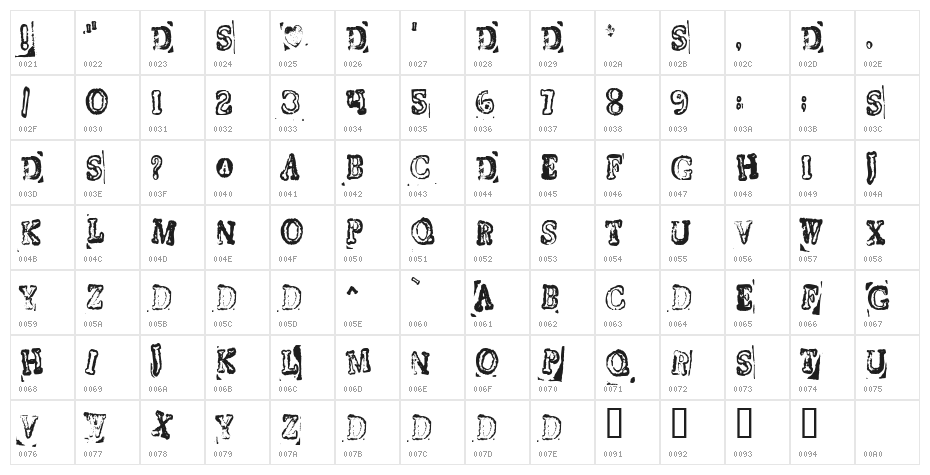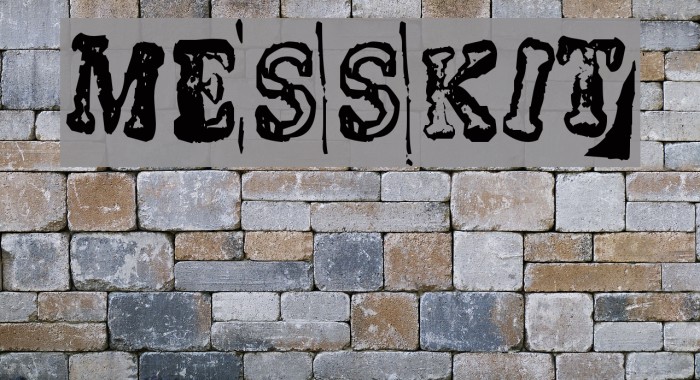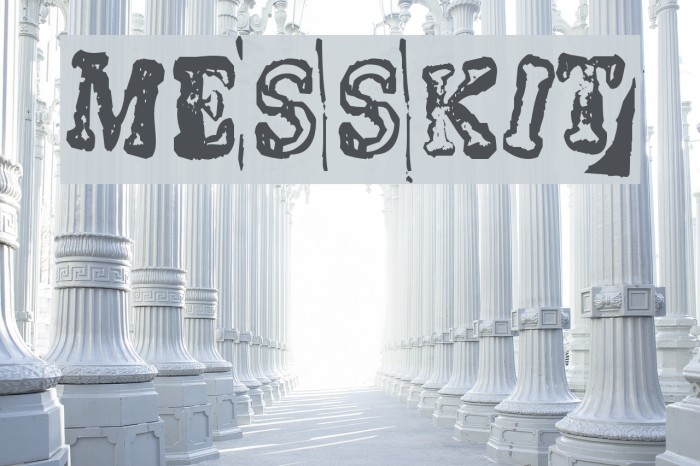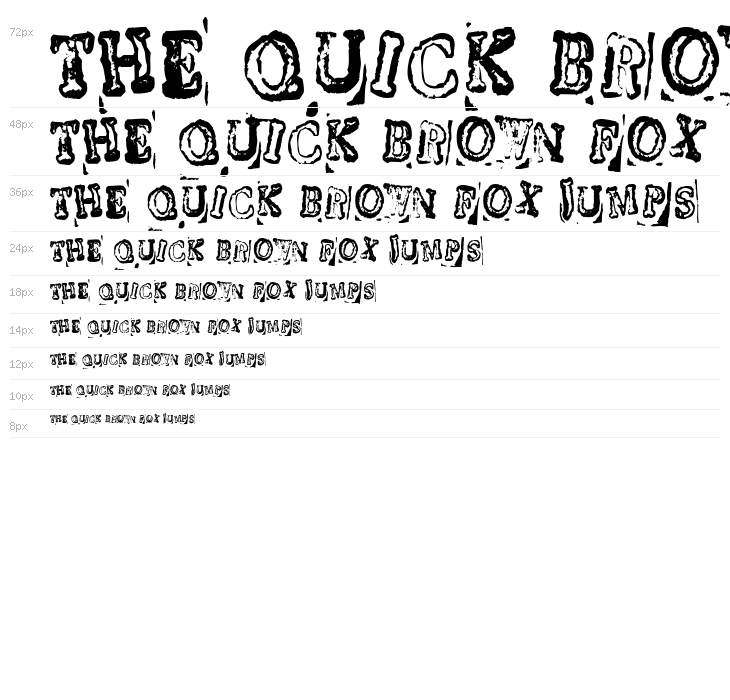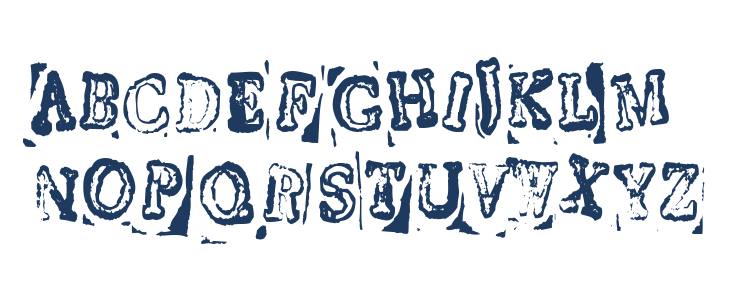
MessKit Font
MessKit Description
This font features a distressed, grunge style with a bold and rugged appearance. Each character appears as if it has been stamped or printed with a worn-out ink pad, giving it a unique, textured look. The letters are uppercase and lowercase, with numbers and a selection of special characters. The irregular edges and inconsistent ink coverage contribute to its vintage and industrial feel. This font is ideal for projects that require a raw, edgy aesthetic, such as posters, album covers, or urban-themed designs. Its boldness ensures it stands out, while the distressed details add character and depth.
| Overall Style | Vintage, Grunge |
| Proposed Projects | Ideal for posters, album covers, urban-themed designs, and any project needing a raw, edgy aesthetic. |